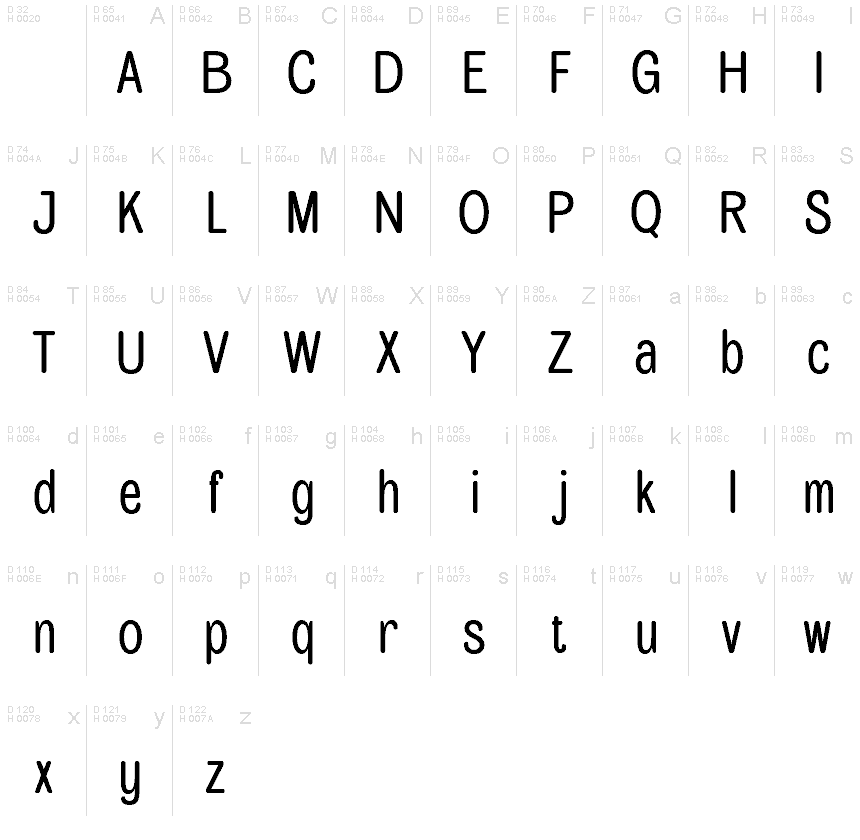
MediteraRounded-Regular Demo
Meditera Rounded font by Craft Supply Co. is a free condensed sans serif font with a modern aesthetic inspired by geometric shapes and consistent rhythm. The font features smooth curves that give it a friendly appearance and flow, resulting in an inviting read without sacrificing professional impressions.
Versatile usage allows it to flourish on business cards, banners, catalogs, magazines, apps, infographics, UI and UX design elements alongside branding or packaging projects for food or cosmetic items.
Meditera Rounded Demo